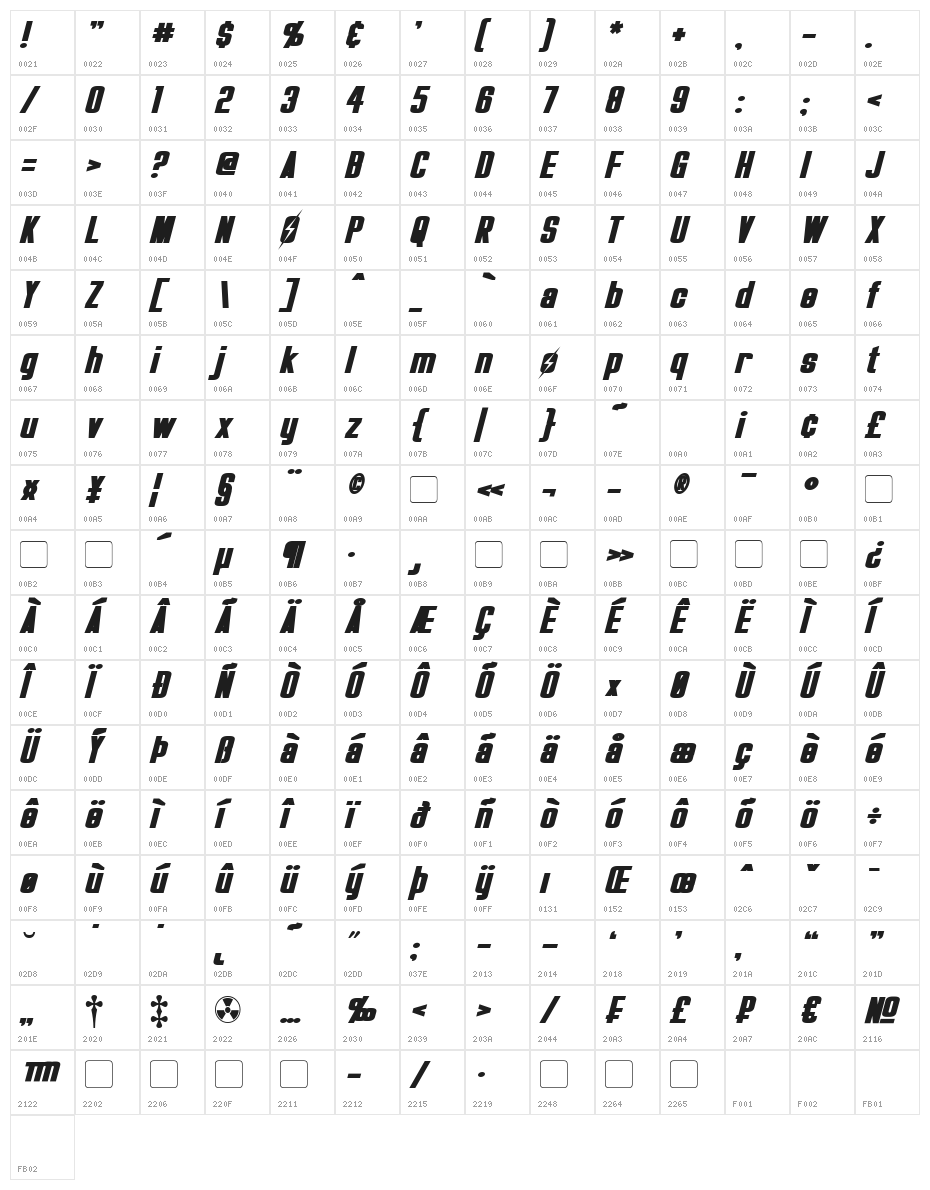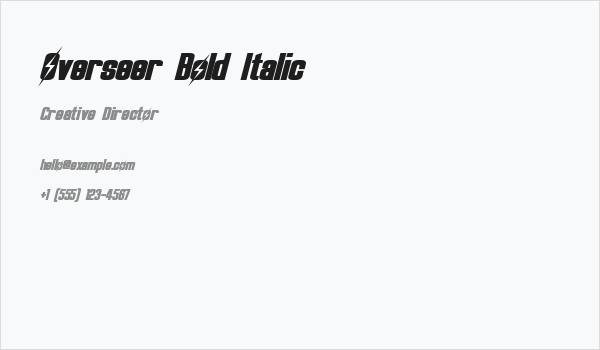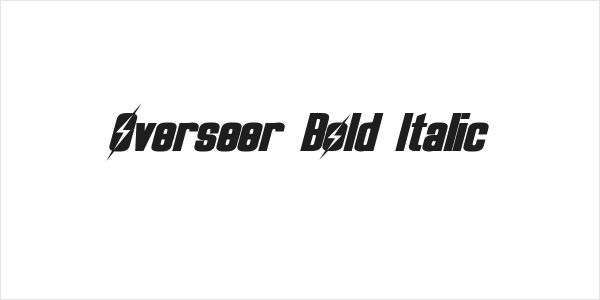
Overseer Bold Italic Font
Overseer Bold Italic Description
This font features a bold and italicized style with a strong, impactful presence. The uppercase and lowercase letters are designed with a slight slant, enhancing the dynamic and energetic feel. The characters are wide and robust, with a consistent stroke thickness that conveys strength and stability. The inclusion of a lightning bolt motif within certain letters adds a unique and edgy touch, making it stand out for creative and modern applications. The numbers and special characters maintain the bold and italicized theme, ensuring uniformity across all glyphs.